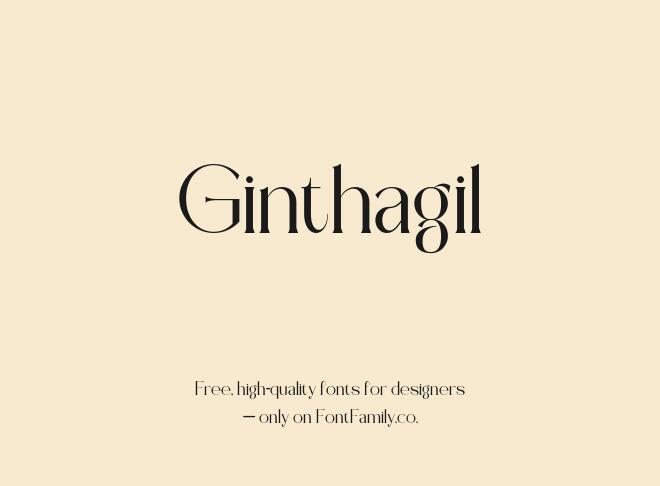
Ginthagil Font
Ginthagil Font, crafted by Ginthagil Foundry, is a modern, elegant, and display font that stands out in its simplicity and refinement. Its sleek lines and minimalistic design make it an excellent choice for a vast array of design projects, including logos, branding, website headers, and more. The font's unique character set, with its subtle curves and clean lines, offers a fresh take on the modern font category, setting it apart from other fonts in the market. Ginthagil Font is versatile and adaptable, making it ideal for both digital and print designs. Its contemporary style combined with an elegant touch creates a perfect balance that can elevate any design project. Its commercial license further enhances its appeal, offering unlimited possibilities for professional use.